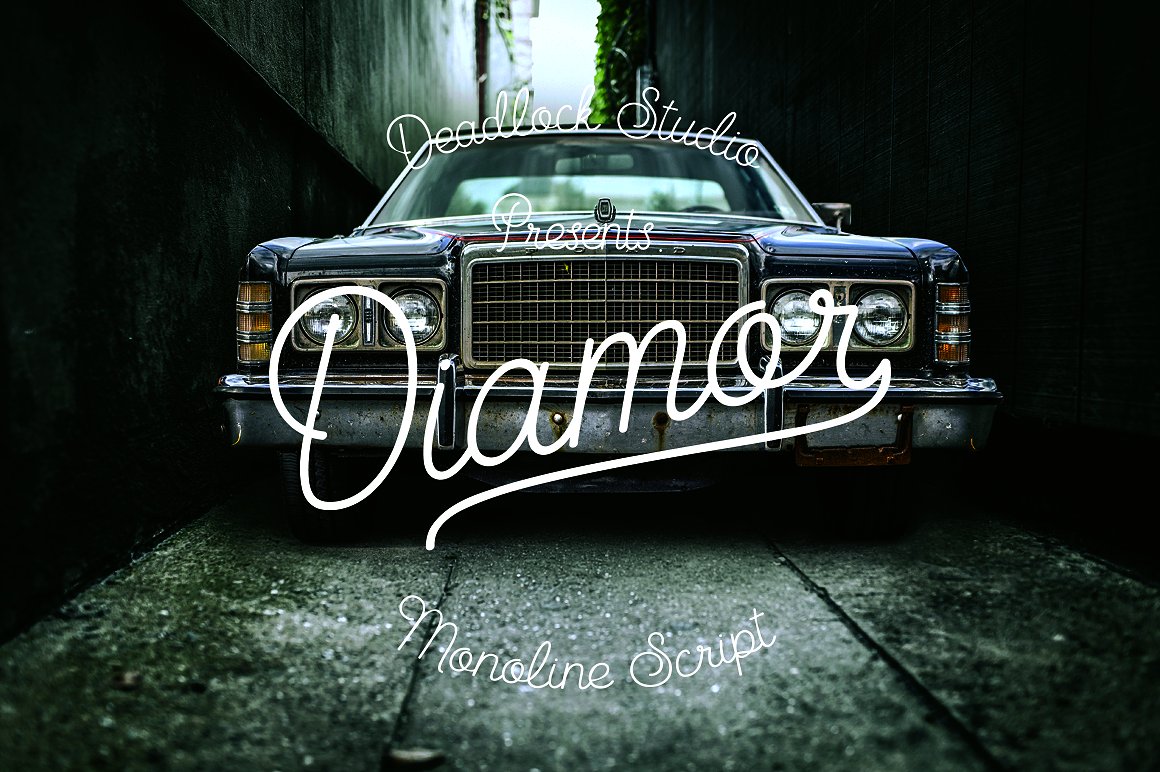
Diamor Script Font
Diamor Script designed to create a beautifull typography. realy ideal for invitations, product packaging, quotes, etc.
| Classification: | Handwritten Fonts, Script Fonts |